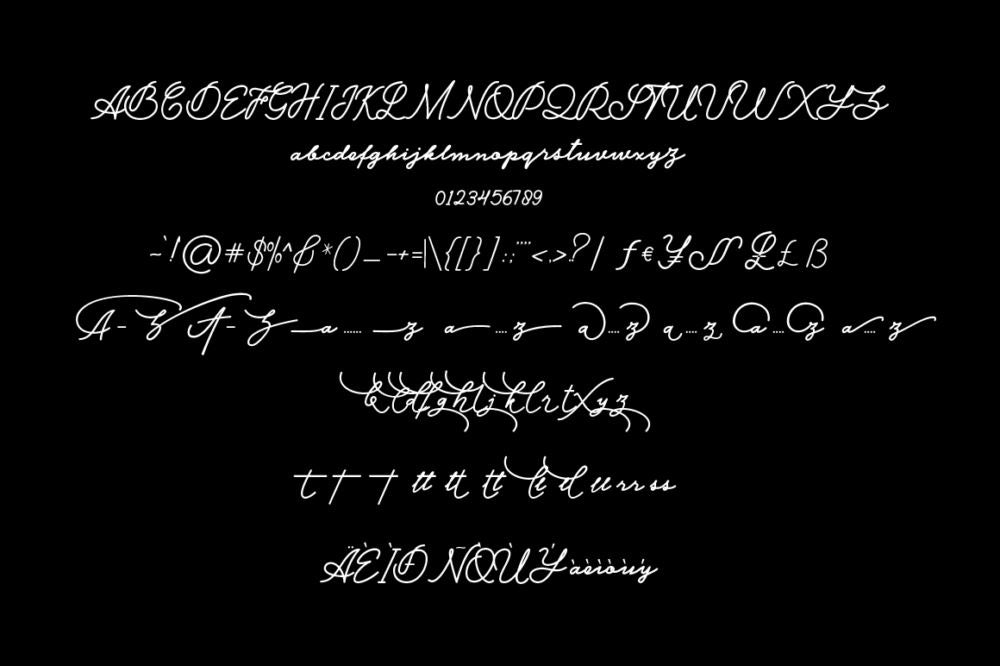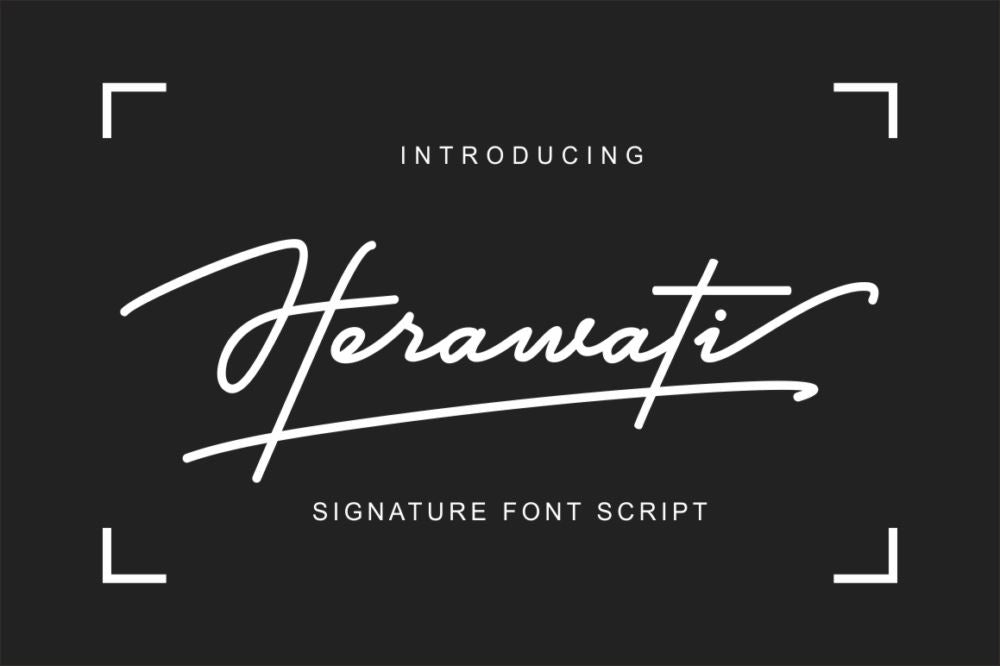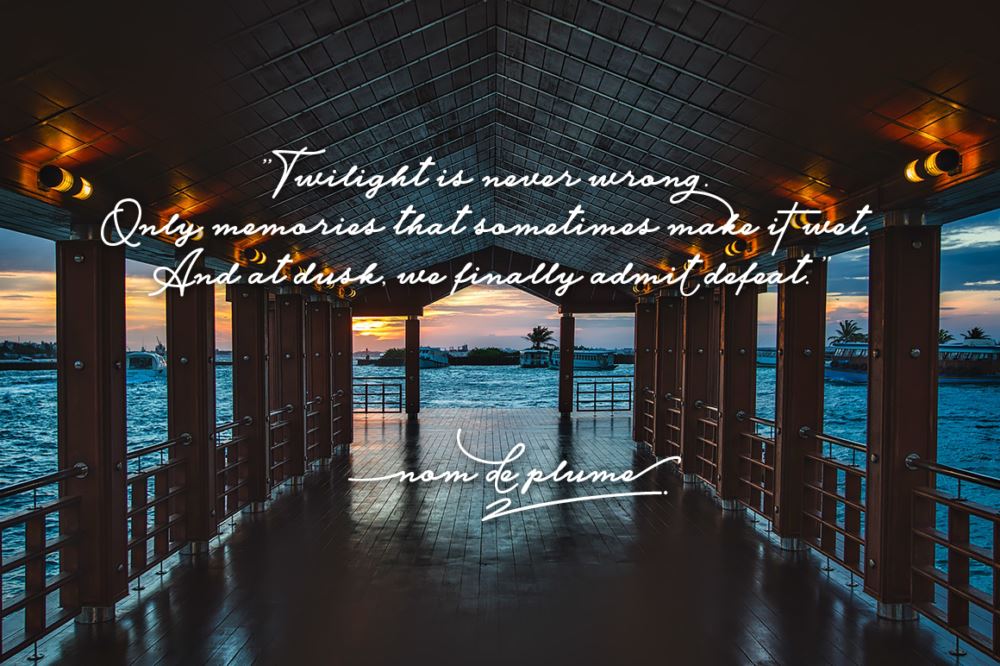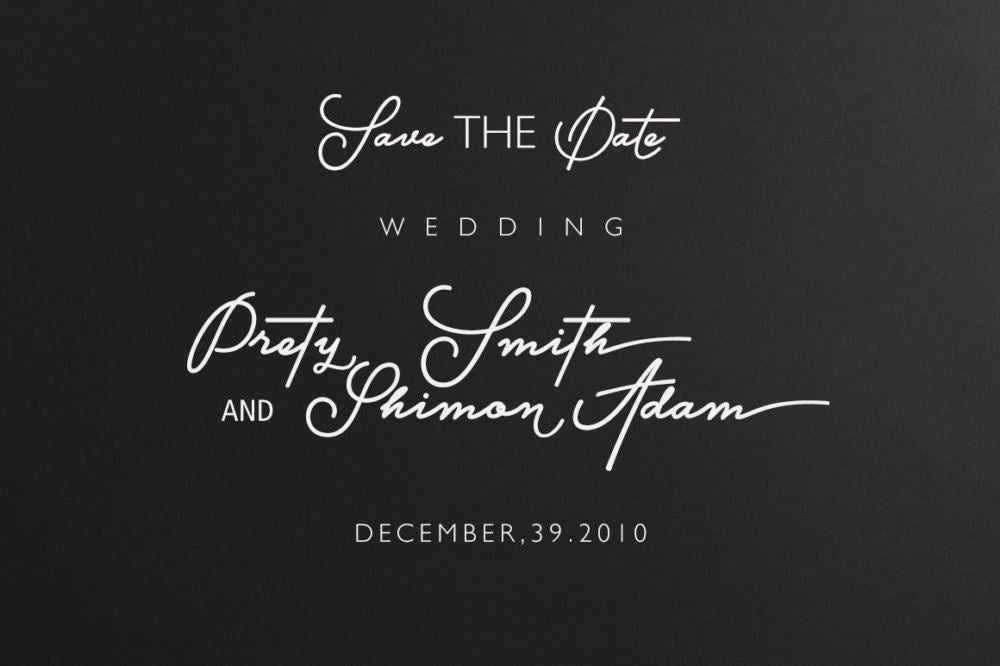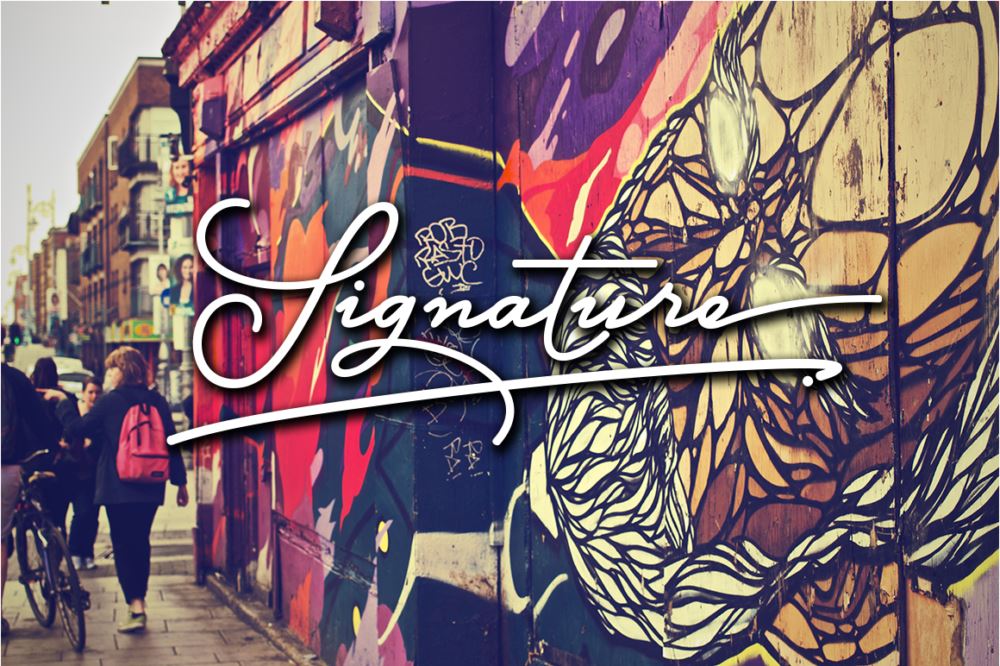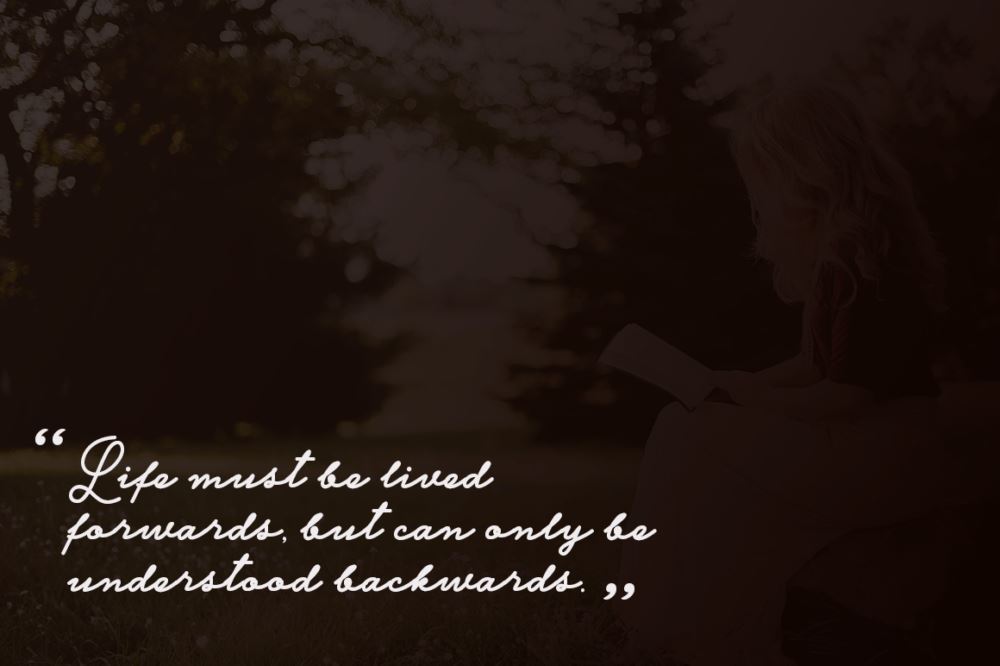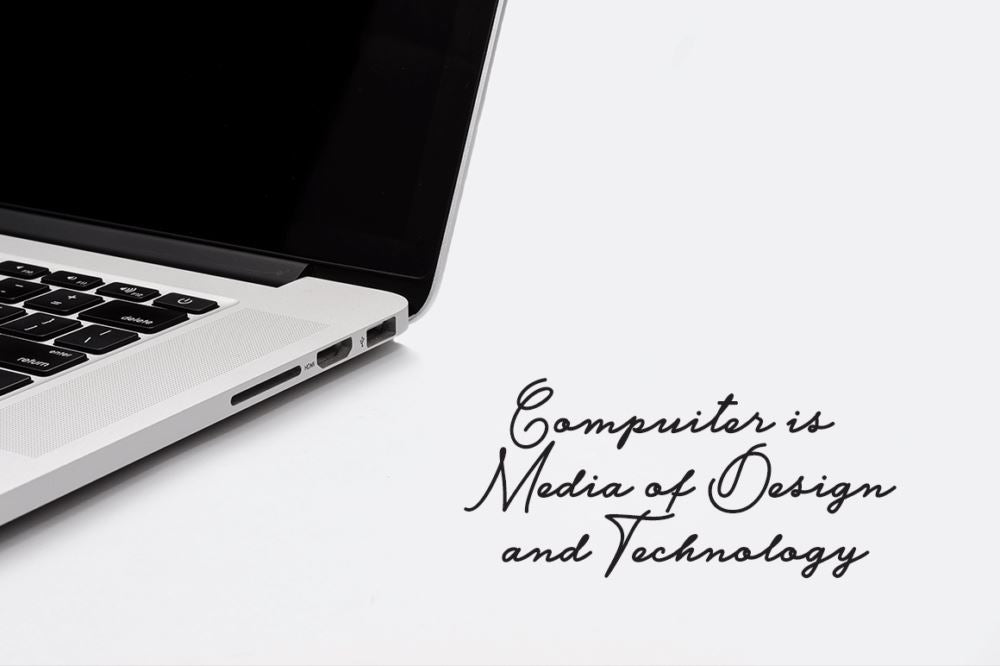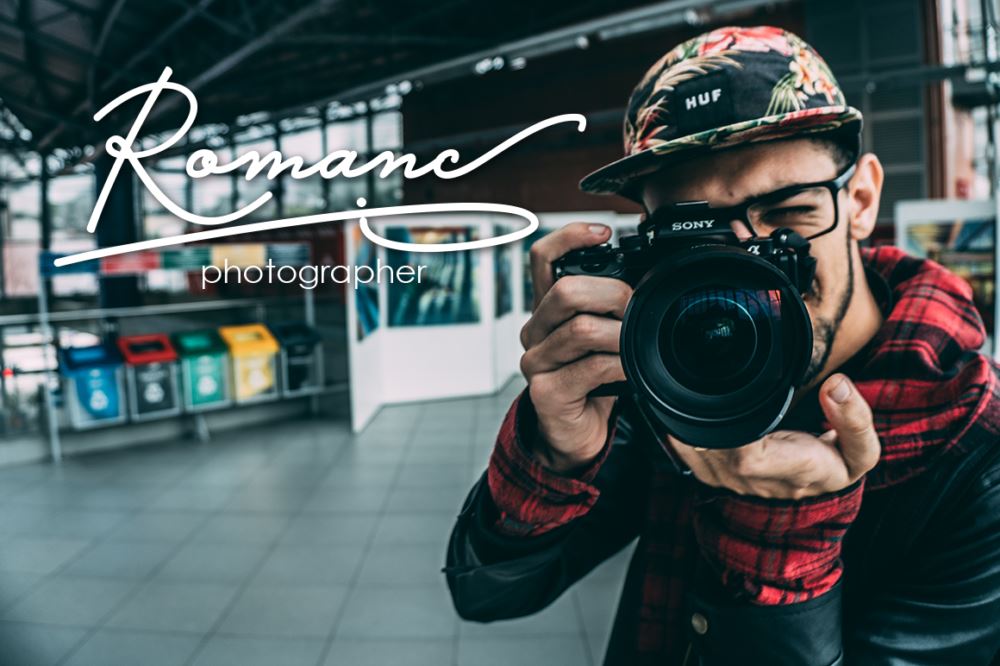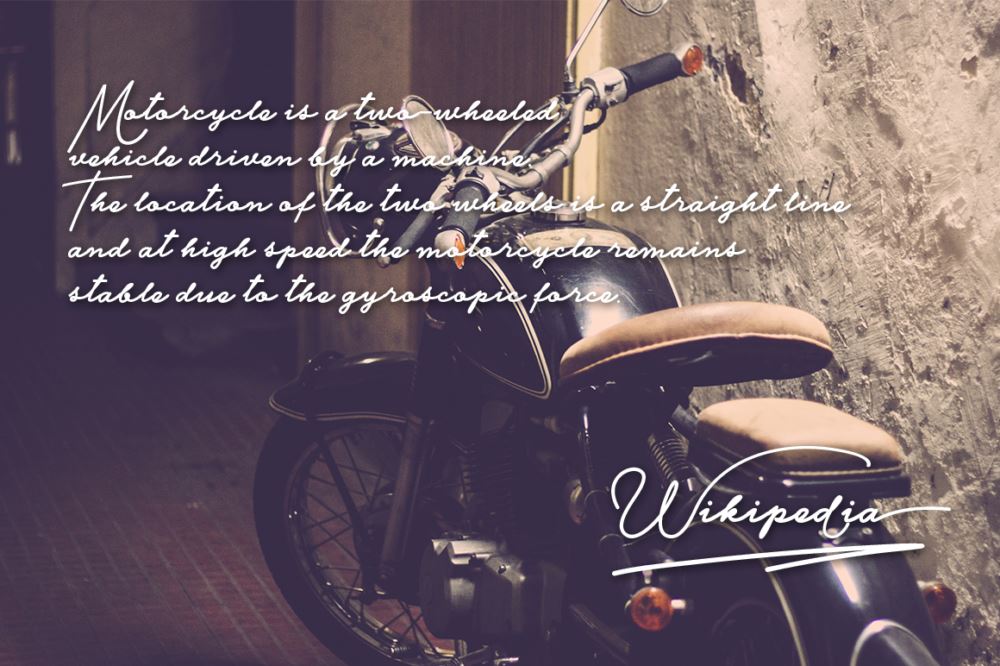
Herawati Signature
About Herawati Signature
Herawati Signature. This font is designed for font users who like the Modern Character. This font is equipped with various alternate front and rear characters as well as upper and middle fonts, so it is suitable for signature, pearl word, book title, magazine title, invitation card, or works that require original handwriting character. No less important this font is equipped with Alternative Swash and ligature. The Features of this fonts is; Standart ligatures Stylistic Alternates Swash Alternates Stylistic sets File font Herawati Include; Herawati Signature OTF Herawati Signature TTF Herawati Signature Swas OTF Herawati Signature Swas TTF Herawati Signature font Web Programs that support in this font is a Photo Shop, Adobe Illustrator, Adobe Indesign, Corel Draw and Microsoft Office. Can be used for various purposes.such as headings, logos, wedding invitation, t-shirt, letterhead, signage, lable, news, posters, badges etc. To enable the OpenType Stylistic alternates, you need a program that supports OpenType features such as Adobe Illustrator CS, Adobe Indesign & CorelDraw X6-X7 Programs that support in this font is a Photo Shop, Adobe Illustrator, Adobe Indesign, Corel Draw and Microsoft Office. Can be used for various purposes.such as headings, logos, wedding invitation, t-shirt, letterhead, signage, lable, news, posters, badges etc. To enable the OpenType Stylistic alternates, you need a program that supports OpenType features such as Adobe Illustrator CS, Adobe Indesign & CorelDraw X6-X7 rograms that support in this font is a Photo Shop, Adobe Illustrator, Adobe Indesign, Corel Draw and Microsoft Office. Can be used for various purposes.such as headings, logos, wedding invitation, t-shirt, letterhead, signage, lable, news, posters, badges etc. To enable the OpenType Stylistic alternates, you need a program that supports OpenType features such as Adobe Illustrator CS, Adobe Indesign & CorelDraw X6-X7 rograms that support in this font is a Photo Shop, Adobe Illustrator, Adobe Indesign, Corel Draw and Microsoft Office. Can be used for various purposes.such as headings, logos, wedding invitation, t-shirt, letterhead, signage, lable, news, posters, badges etc. To enable the OpenType Stylistic alternates, you need a program that supports OpenType features such as Adobe Illustrator CS, Adobe Indesign & CorelDraw X6-X7